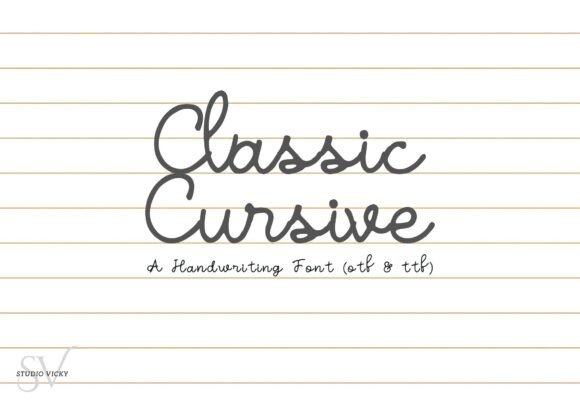
Classic Cursive Font: Elevate Your Design with Timeless Elegance
The Classic Cursive Font is a beautiful, handwritten script-inspired font that has captured the hearts of designers and creatives worldwide. This versatile font bundle is perfect for adding a touch of elegance and sophistication to various design projects, from quotes and branding to t-shirts, mugs, websites, blogs, logos, social media, invitations, and more.
Key Features of Classic Cursive Font
- Handwritten Script-Inspired Design: The Classic Cursive Font boasts a unique, handwritten script-inspired design that adds a personal touch to any project.
- Versatility: This font bundle is ideal for a wide range of applications, including quotes, branding, t-shirts, mugs, websites, blogs, logos, social media, invitations, and more.
- Elegant and Sophisticated: The Classic Cursive Font exudes timeless elegance and sophistication, making it perfect for designers and creatives seeking to add a touch of refinement to their work.
- Easy to Read: Despite its elegant and cursive nature, the Classic Cursive Font remains easy to read, ensuring that your message is conveyed clearly and effectively.
Tips for Using Classic Cursive Font Effectively
To get the most out of the Classic Cursive Font, follow these expert tips:
- Pair with contrasting fonts: Combine the Classic Cursive Font with sans-serif or serif fonts to create visual interest and hierarchy.
- Adjust font sizes: Experiment with different font sizes to emphasize certain words or phrases.
- Play with colors: Take advantage of the font’s elegance by using a range of colors, from classic black and white to bold and bright hues.
- Add textures and overlays: Incorporate textures, patterns, or overlays to add depth and visual interest to your design.
- Experiment with spacing: Adjust the spacing between letters and words to create a unique, customized look.
How Classic Cursive Font Compares to Other Fonts
The Classic Cursive Font stands out from other fonts in several ways:
- Unique handwritten script-inspired design: Unlike generic, computer-generated fonts, the Classic Cursive Font boasts a distinctive, handcrafted feel.
- Elegance and sophistication: This font exudes refinement and poise, making it ideal for designs that require a touch of luxury.
- Versatility: The Classic Cursive Font can be used in a wide range of applications, from formal to informal designs.
Emily R., Graphic Designer
“I was blown away by the quality and uniqueness of the Classic Cursive Font. It’s a game-changer for any designer looking to elevate their work!”
The Classic Cursive Font is a timeless, elegant, and versatile font that can elevate any design project. With its unique handwritten script-inspired design, ease of use, and wide range of applications, this font bundle is perfect for designers and creatives seeking to add a touch of sophistication to their work.